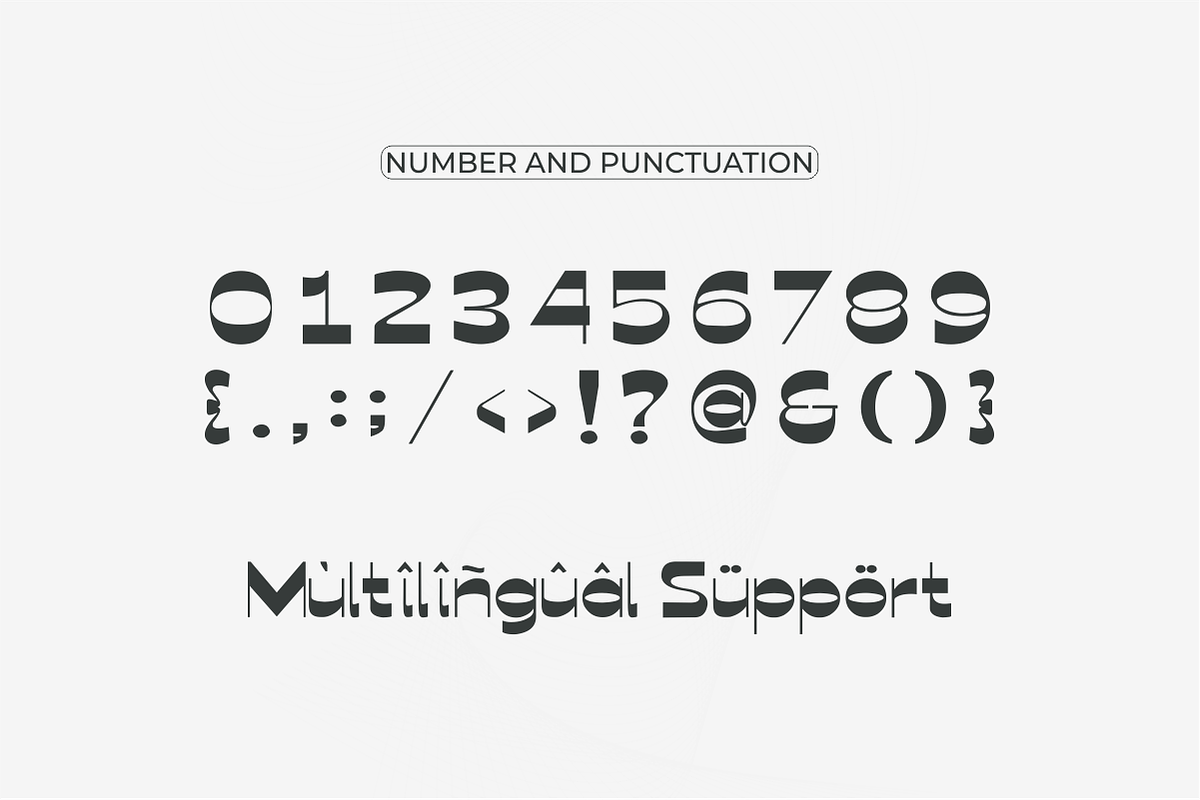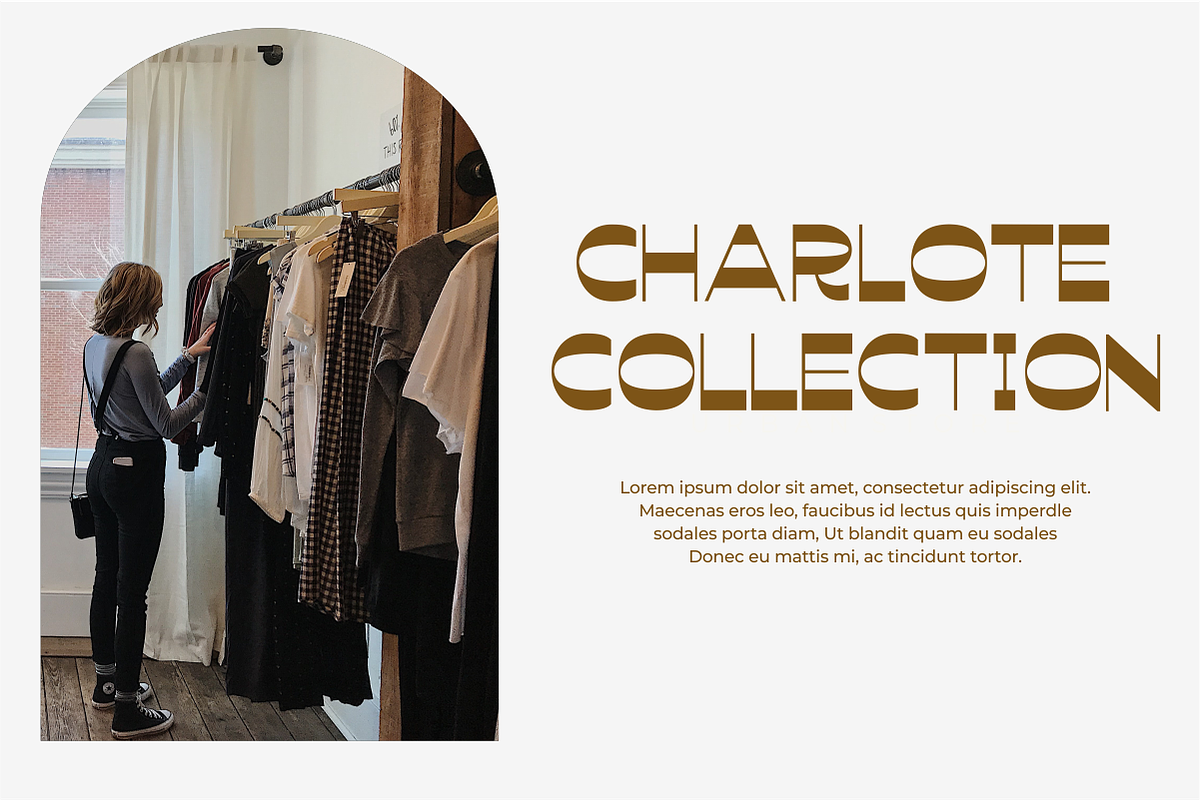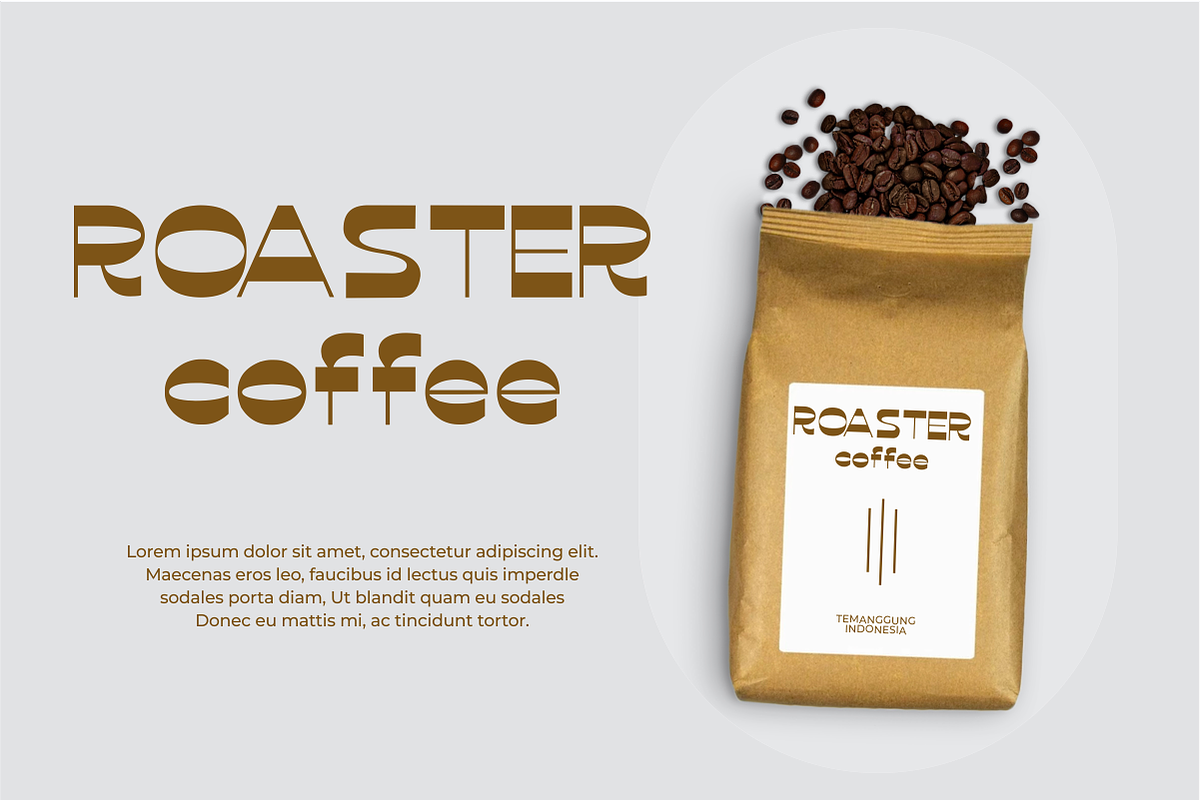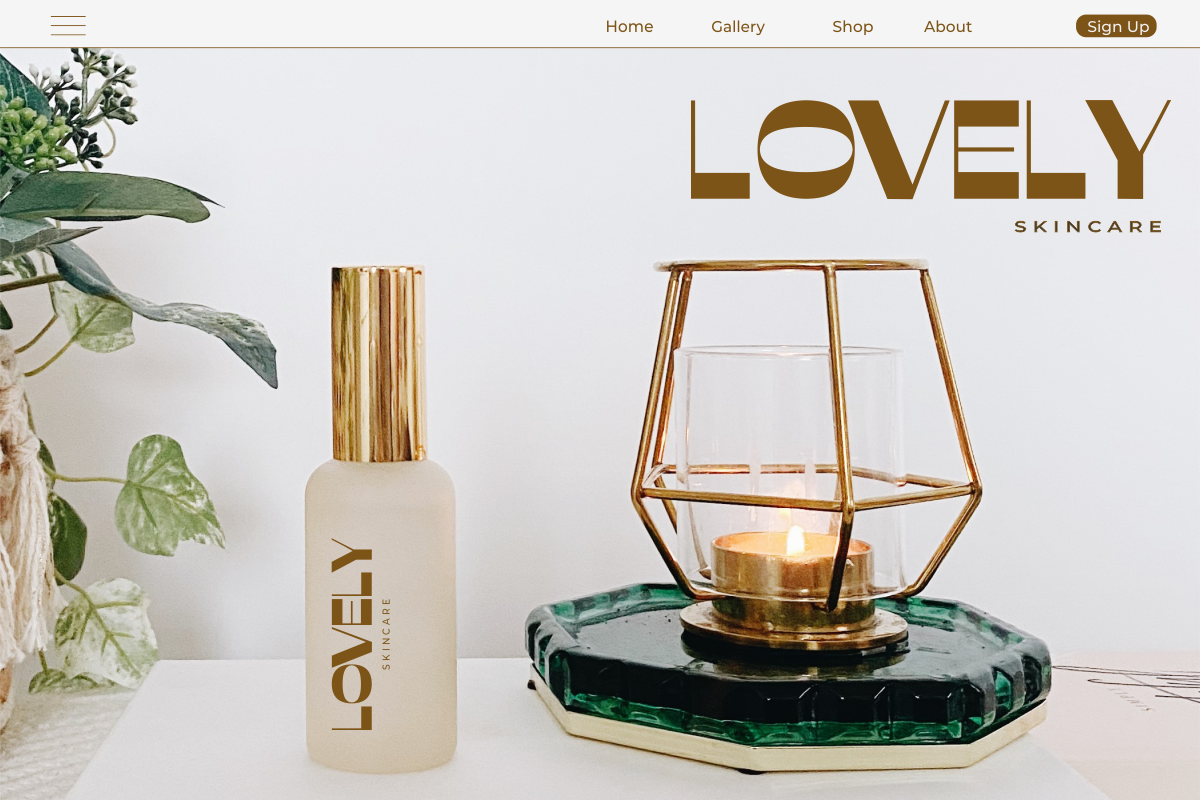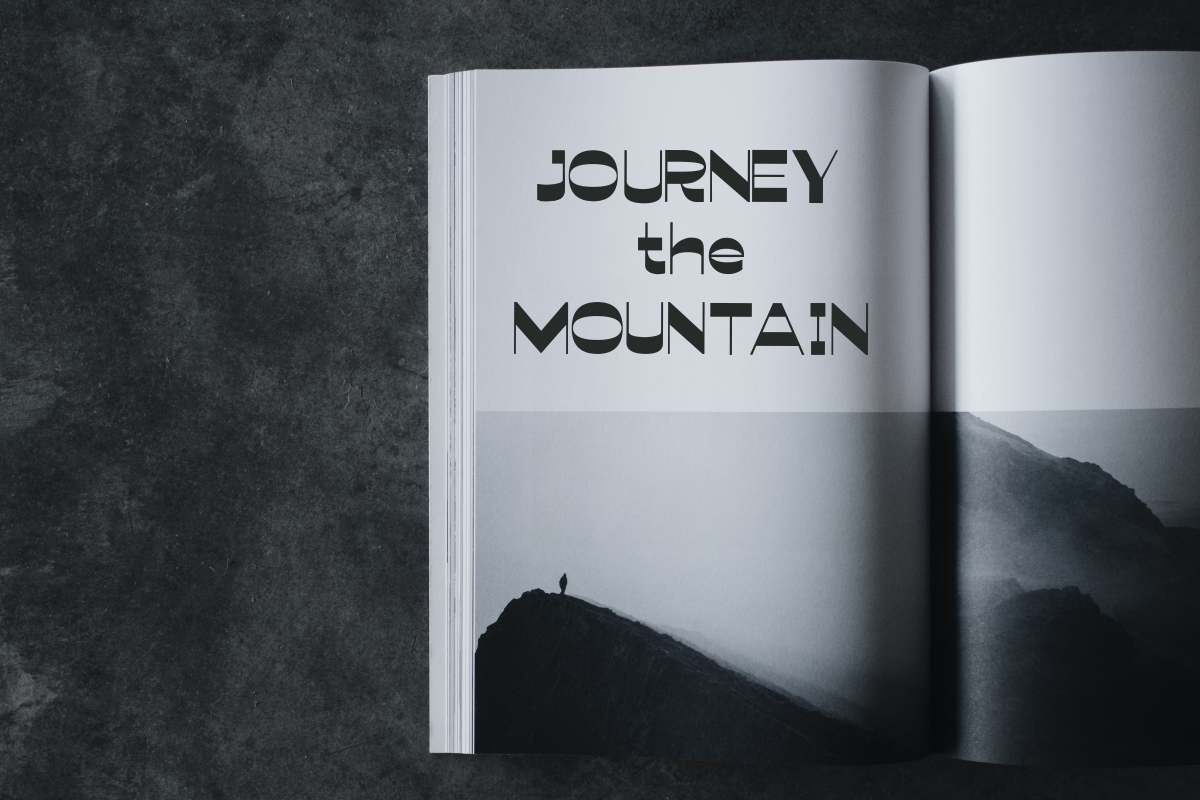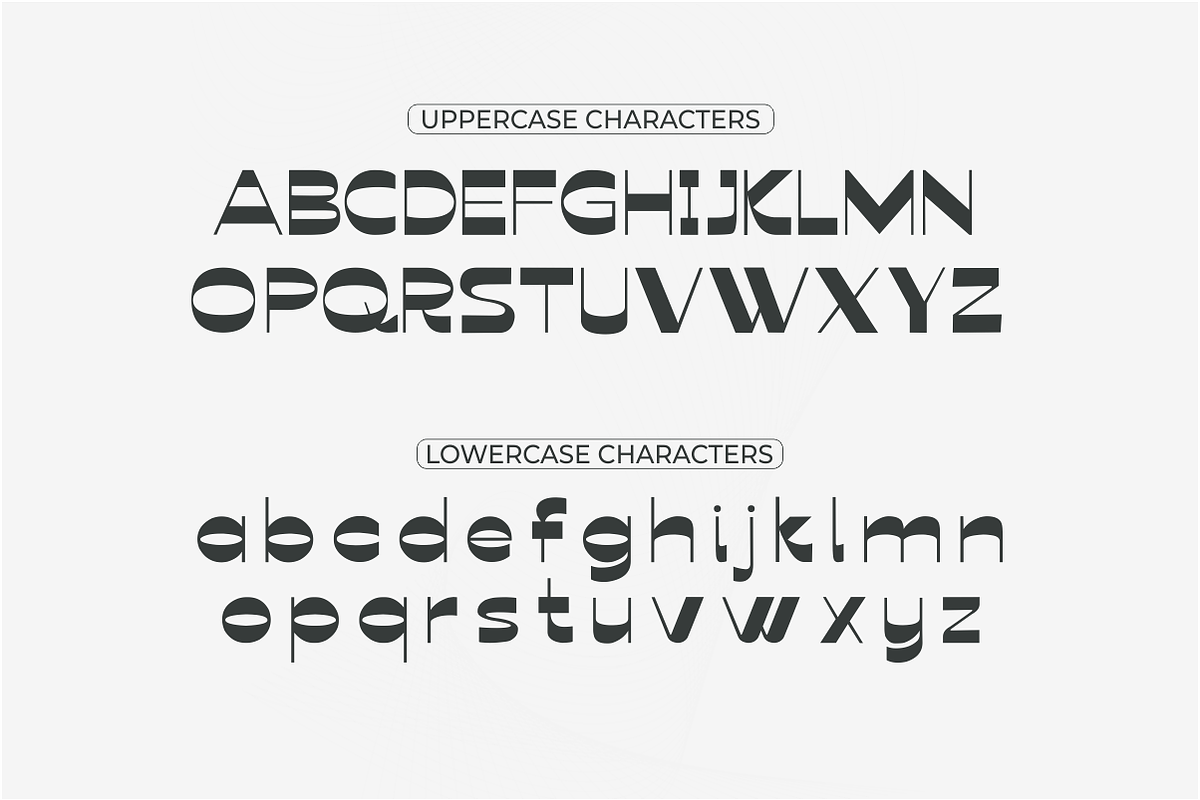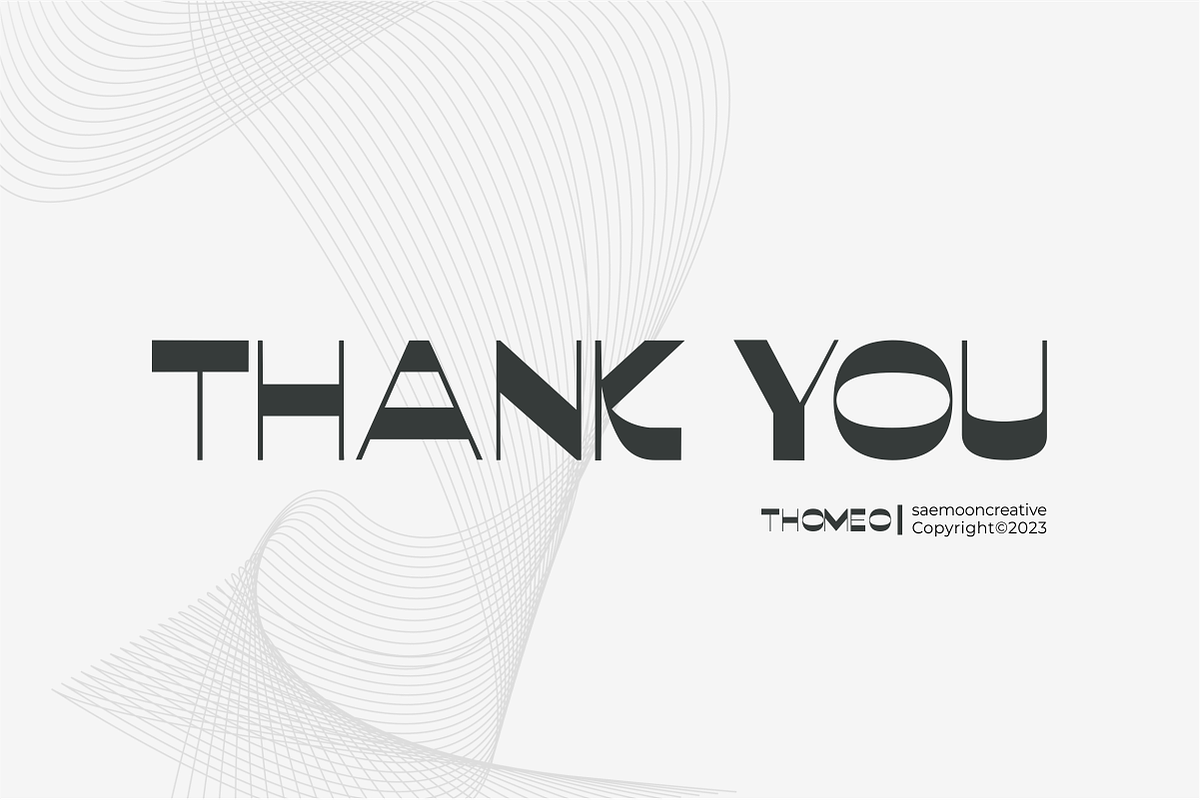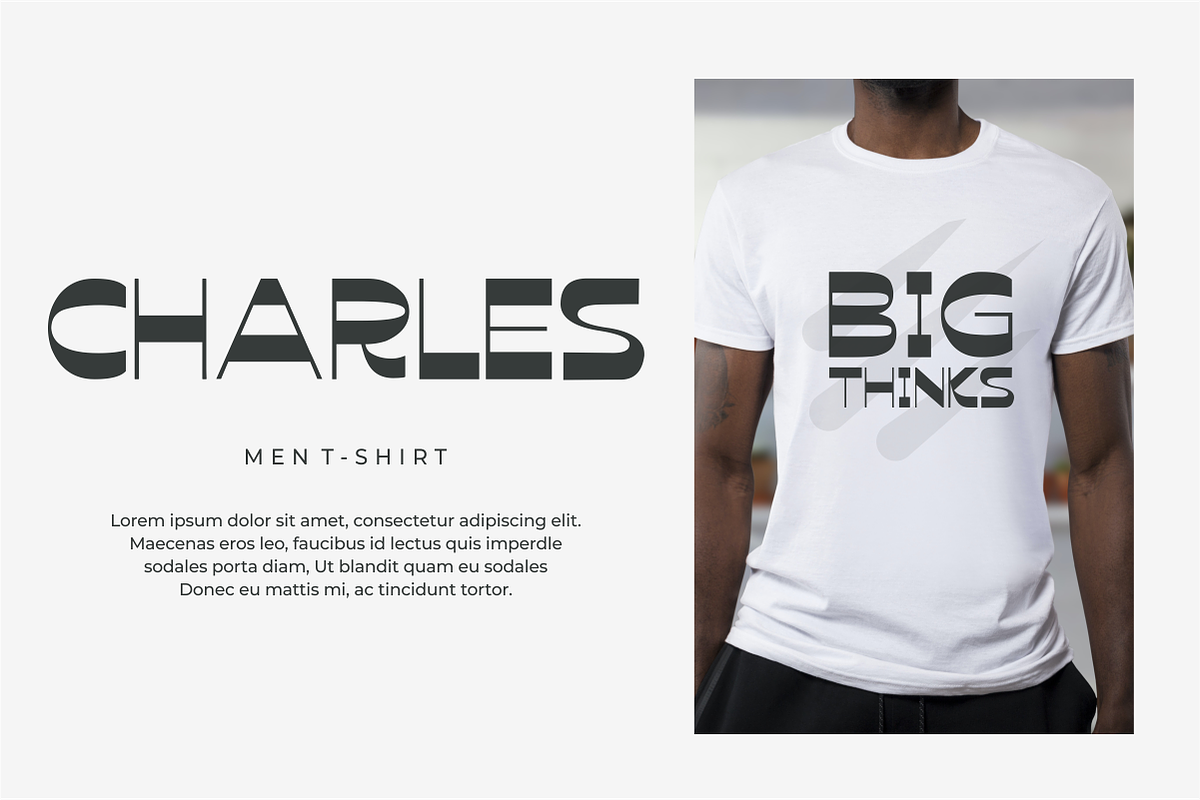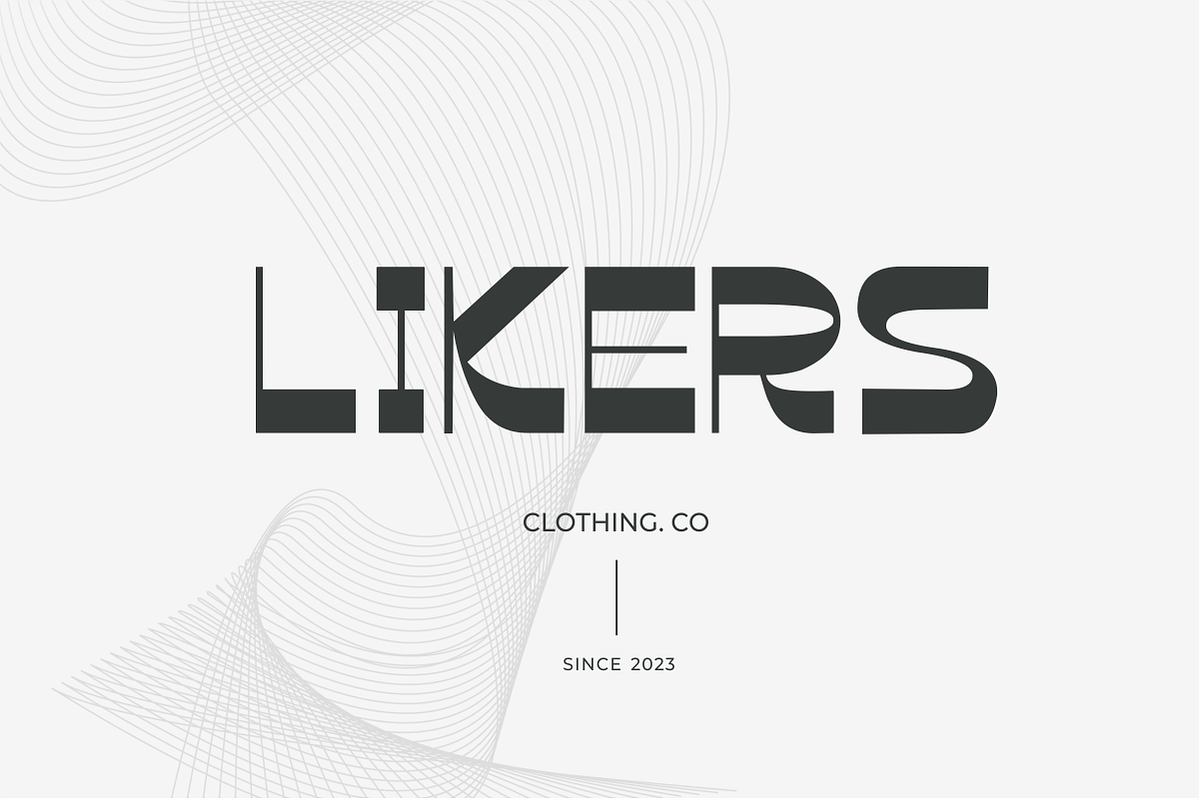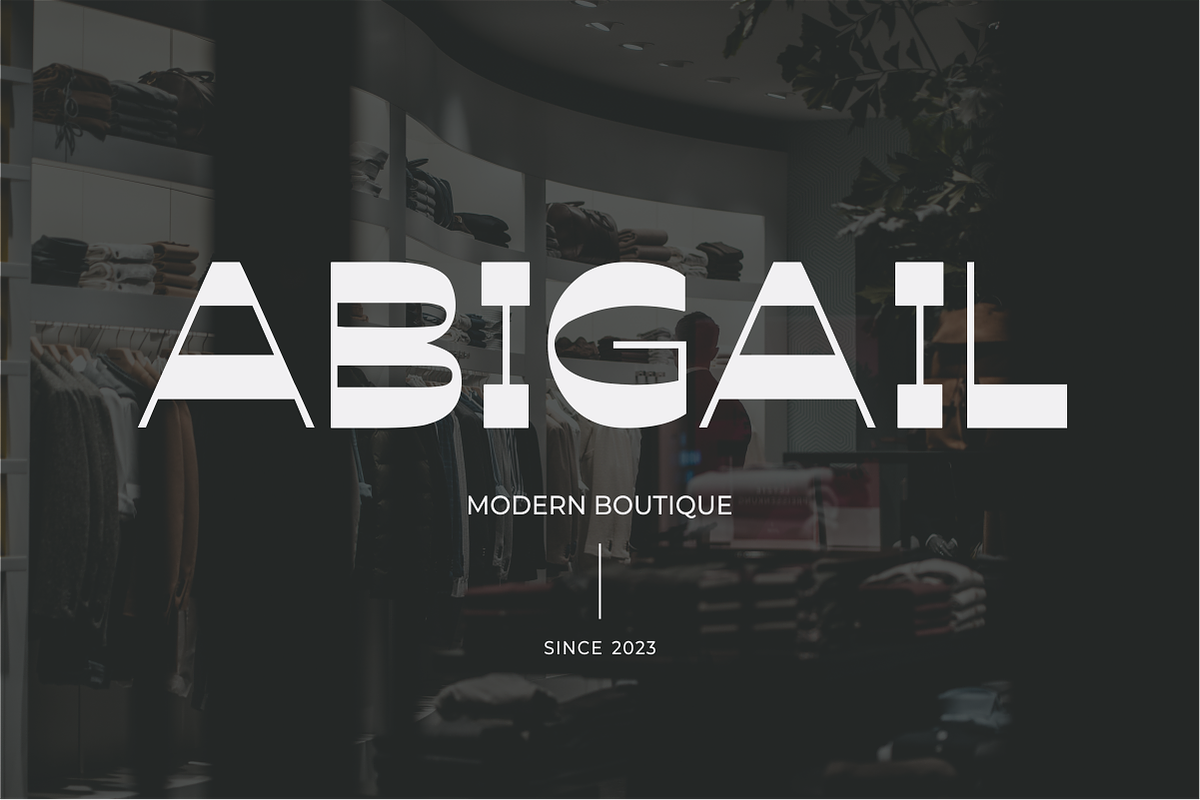
Thomeo
Thomeo is a bold modern display font with sans serif style. It’s modern and classic font with a unique and different look. It is perfect for editorial projects, logo designs, web font, clothing branding, product packaging, magazine headers, or simply as a stylish text overlay to any background image.